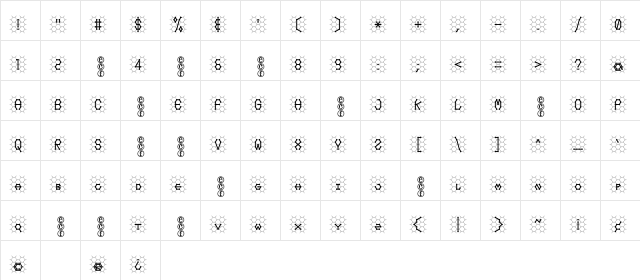
honeycomb (eval) Free Font
honeycomb (eval)
Style: (eval)
Design Context for honeycomb
honeycomb is a composed and adaptable typeface that performs quietly and consistently across a wide range of design contexts.